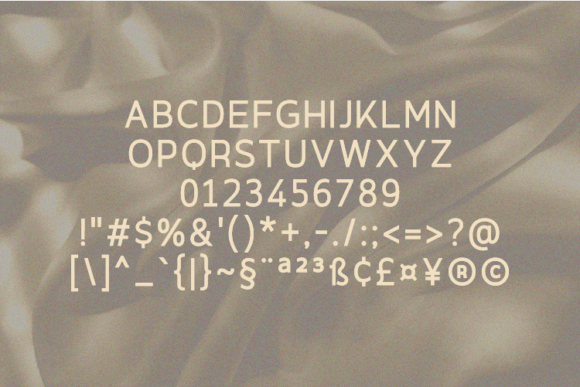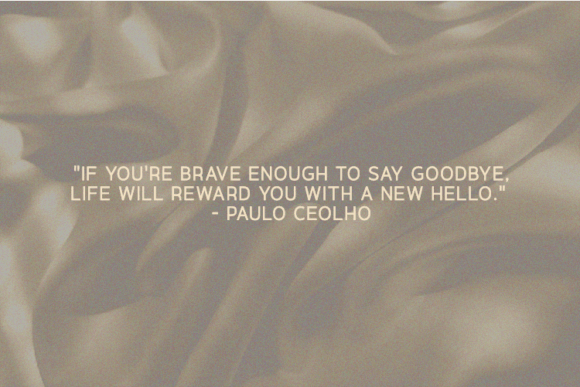
Introduction to Runo Font
Do you ever find yourself staring at a blank page, waiting for the perfect font to spark your creativity? That’s exactly what happened to me when I first discovered the Runo Font. Its sleek, modern design and versatility had me hooked from the very start. Whether you’re working on a high-end branding project or a personal invitation, Runo Font is the perfect design resource to elevate your creative project.
As a designer, it’s always exciting to discover a new font that can take your work to the next level. The Runo Font is more than just a pretty face; it’s a high-quality tool that can be used for a wide range of applications, from stunning logos to gorgeous invitations. And the best part? It’s available for free download, making it an accessible and valuable resource for designers of all levels.
Key Features of Runo Font
- High-quality, unique design with a transparent background, making it ideal for creative projects.
- It’s a highly versatile font, suitable for a wide range of creative projects, from digital designs to print materials.
- Runo Font comes in multiple weights, including light, regular, and bold, allowing designers to achieve the perfect look for their project.
Honest Review: Runo Font
As a designer, I’m always on the lookout for high-quality design resources to elevate my creative projects. Recently, I came across the Runo Font, and I’m excited to share my honest review with you.
What works well: ✨ The Runo Font boasts a sleek and modern design, perfect for contemporary creative projects. Its clean lines, minimalist aesthetic, and versatility make it an excellent addition to any design portfolio. The font is available for free download, which is a huge plus for designers on a budget.
What I like most about the Runo Font is its compatibility with transparent backgrounds. This feature is a game-changer for designers who want to create eye-catching graphics with a seamless look.
Overall, I’m impressed with the Runo Font’s high quality and design flexibility. While it may have some limitations, it’s an excellent resource for designers working on creative projects. If you’re looking for a stylish and modern font to elevate your designs, the Runo Font is definitely worth checking out.
- Compatible with transparent backgrounds
- Modern and sleek design aesthetic
The Runo Font is a versatile, high-quality design resource perfect for creative projects. It offers a transparent background, making it easy to use in various design applications.
To get the most out of the Runo Font, use it in combination with other design elements, such as graphics and images. Experiment with different font sizes and colors to create a unique look.
The Runo Font is perfect for a variety of creative projects, including:
- Typography projects
- Website design